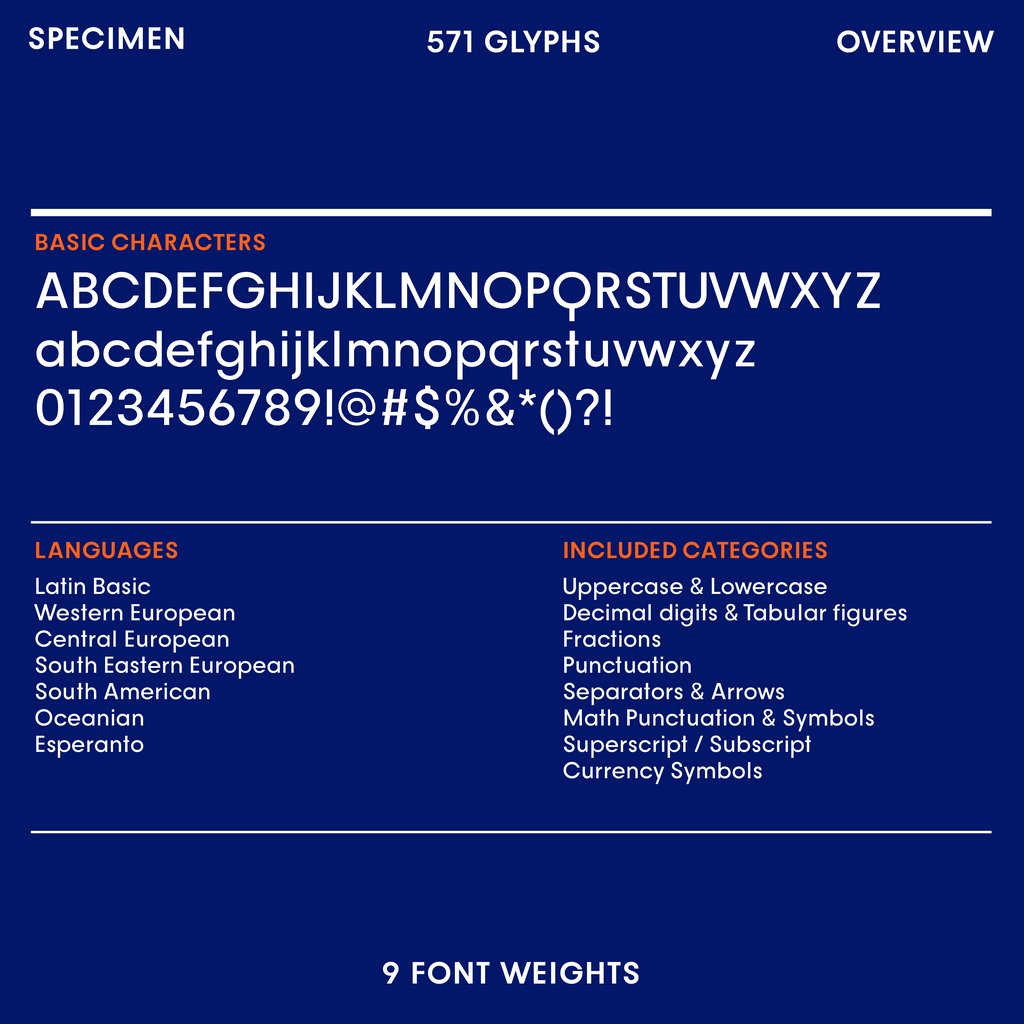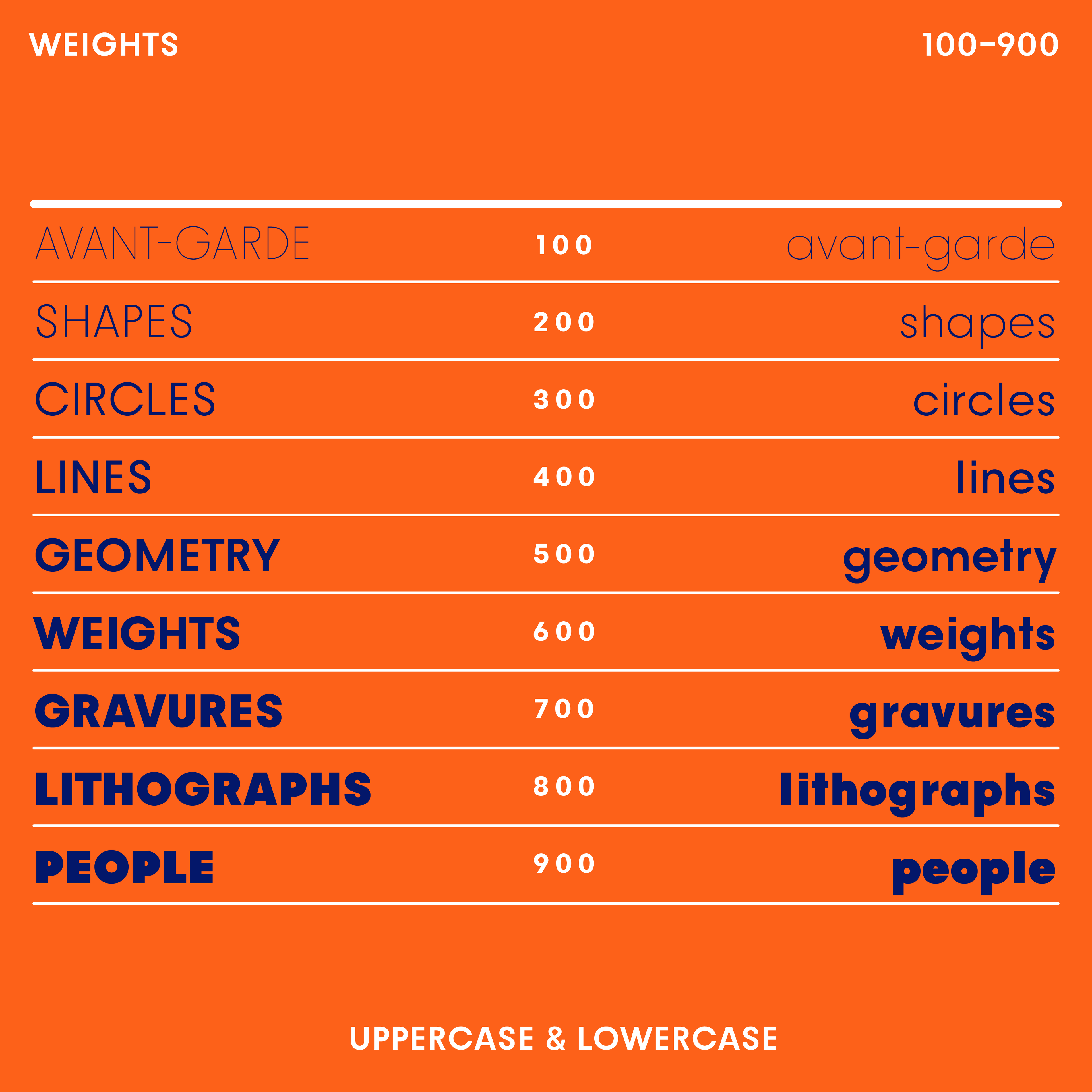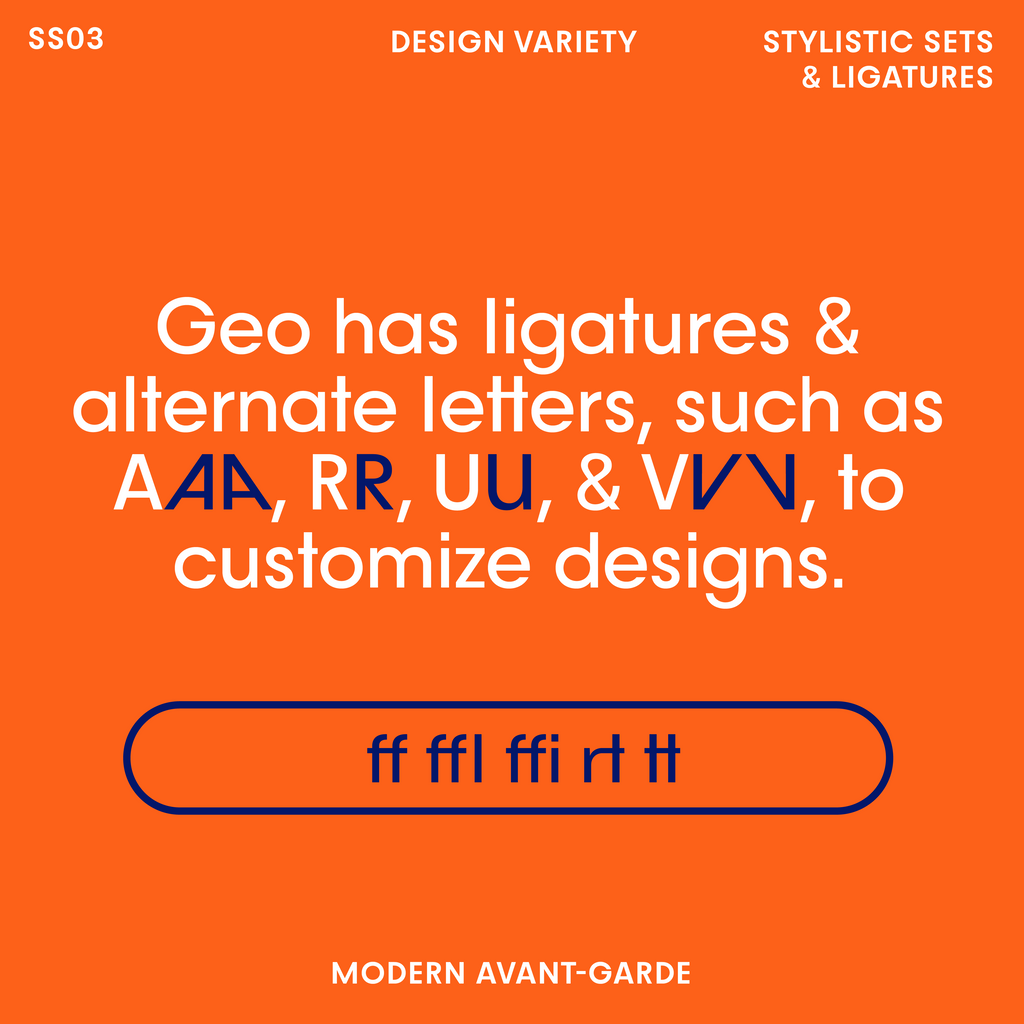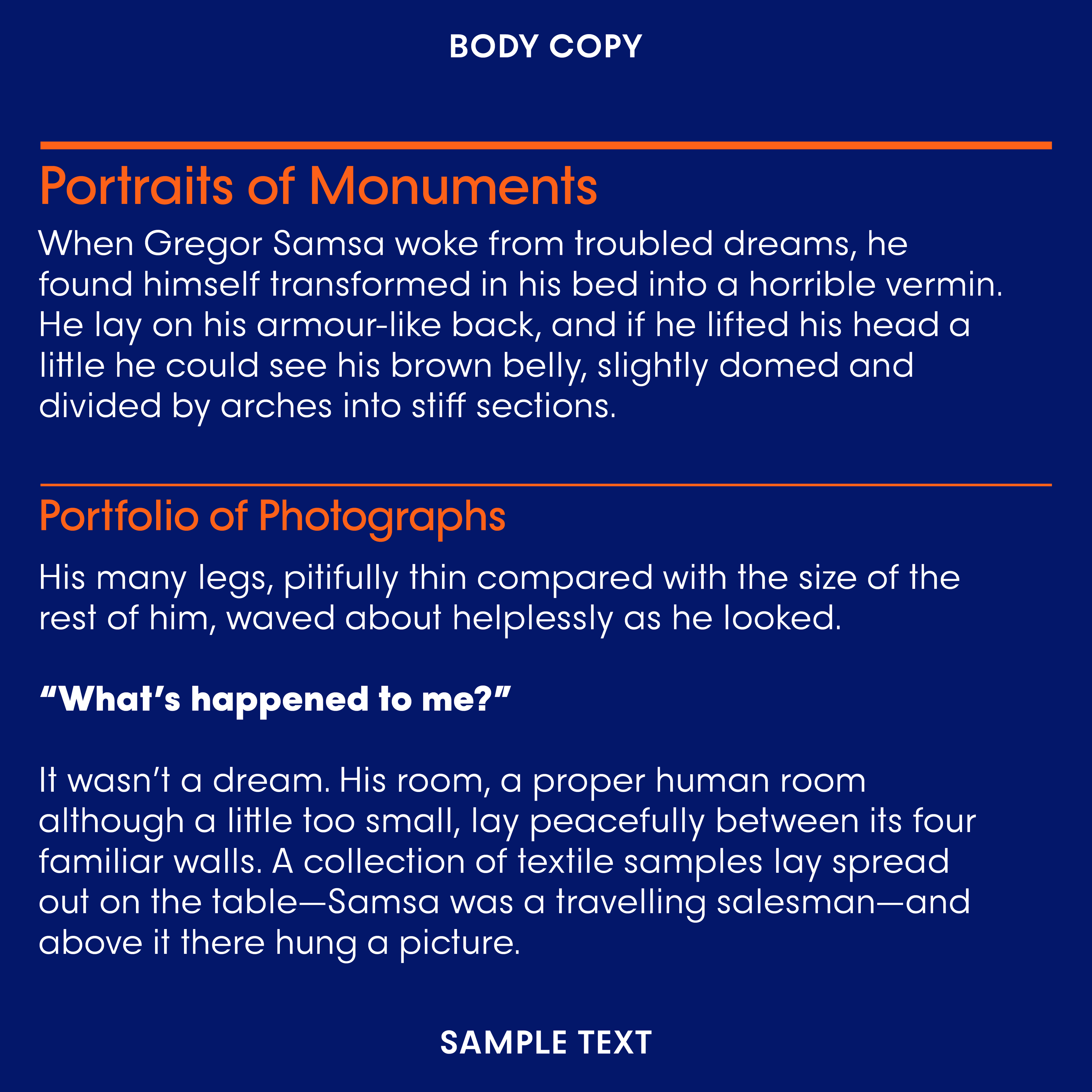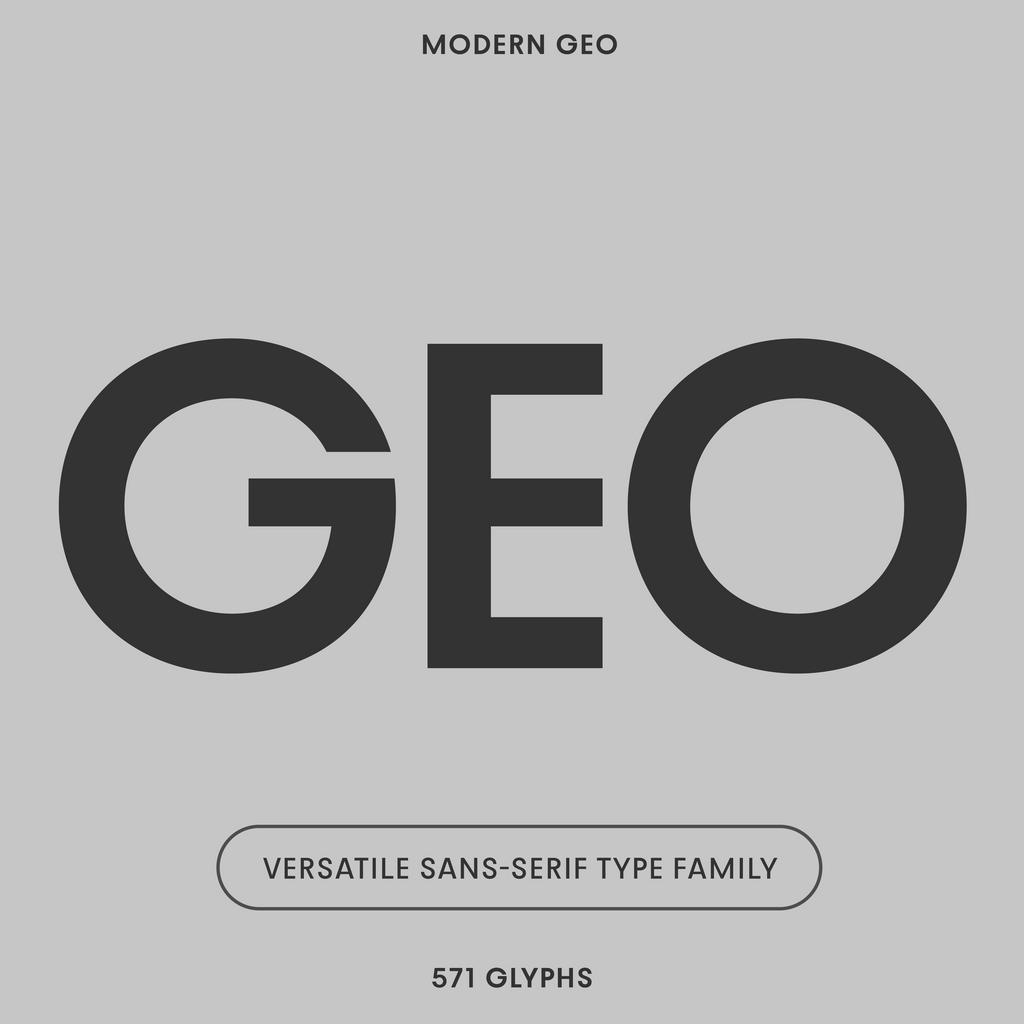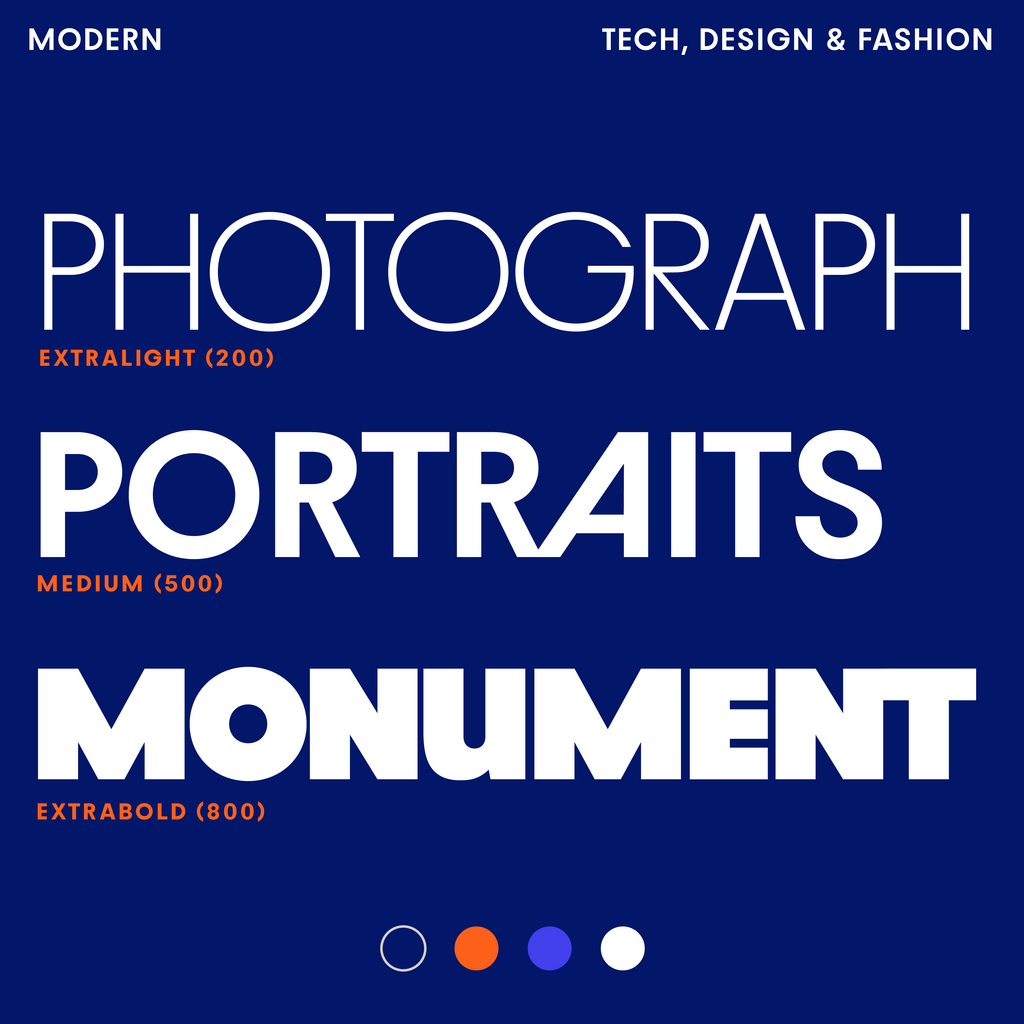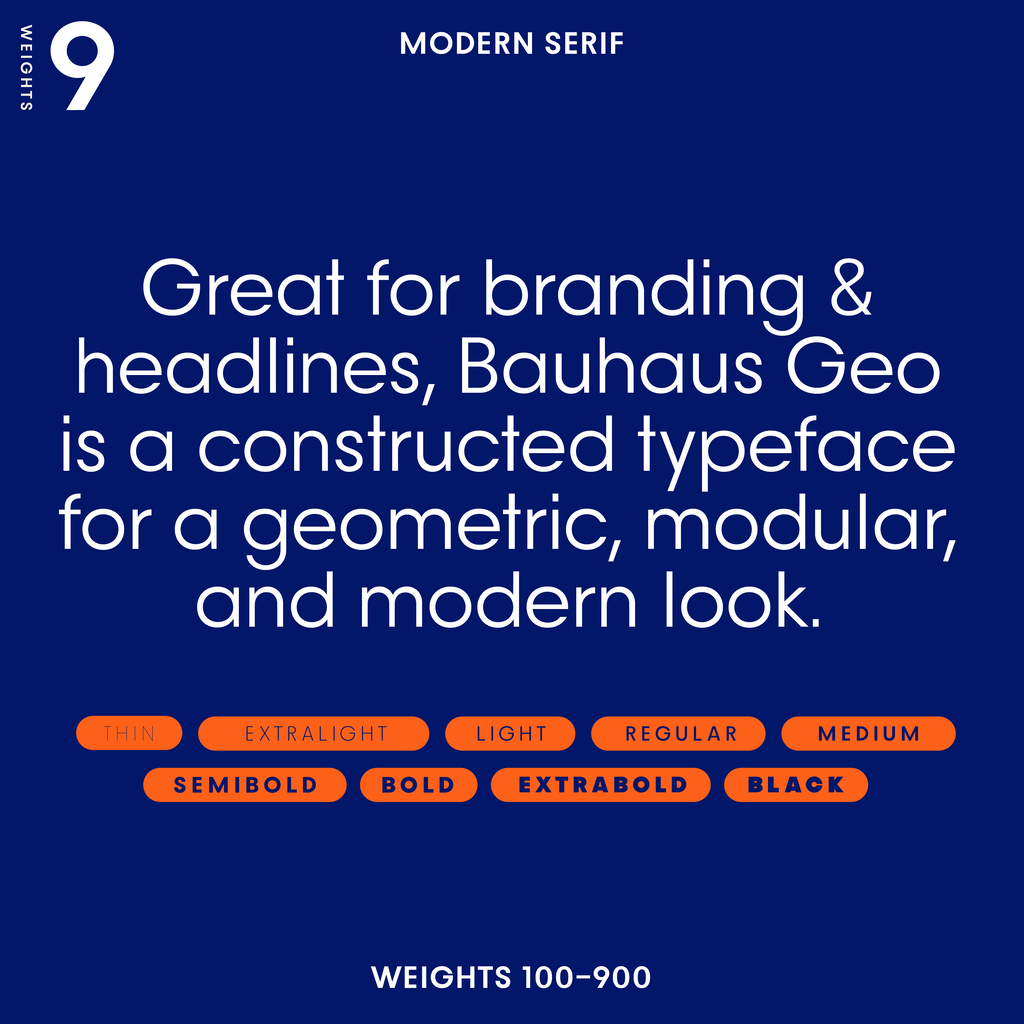
Geo—Modern Display Sans Serif Font, Rounded Shapes
About Geo · Bauhaus · Geometric display
Constructed and modular.
Bauhaus Geo is a geometric font for a constructed, modular, but modern look best for branding and headlines. Geo has alternate letters, such as 3 different A and V styles, 2 options for R & U, to customize designs.
Good for
- Branding
- Headlines
- Logos
Geo in detail
Family
9 weights, Thin to Black, plus a variable font. 642 glyphs, 7 stylistic sets.
Languages
Latin, Western European, Central European.
Figures
Proportional, tabular, slashed zero.
OpenType
Case-sensitive punctuation, discretionary ligatures, fractions, standard ligatures.
Ligatures
ff ffl tton by defaultrtdiscretionary, switch on in your app